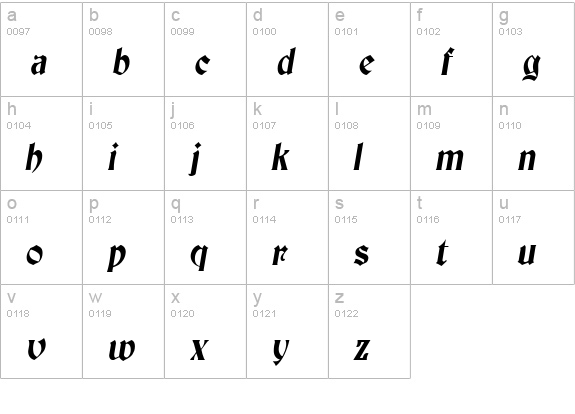
Brandywine-Condensed Italic is a distinctive, condensed-width, italic variant in the Brandywine typeface family \xE2\x80\x94 well suited to design and typography projects.
Brandywine-Condensed Italic font is a sleek and sophisticated typeface that exudes elegance and modernity. With its stylish slanted letters and condensed design, this font is perfect for adding a touch of sophistication to any project. The italic styling adds a touch of flair and personality to your text, making it stand out from the crowd. What's even better is that Brandywine-Condensed Italic font is available for free download at FontsMarket.com. This means you can easily access this stunning font without having to worry about any costs. Whether you're working on a professional presentation, a creative design project, or just want to add some style to your personal documents, Brandywine-Condensed Italic font is the perfect choice. Download it now and elevate your typography game to the next level!